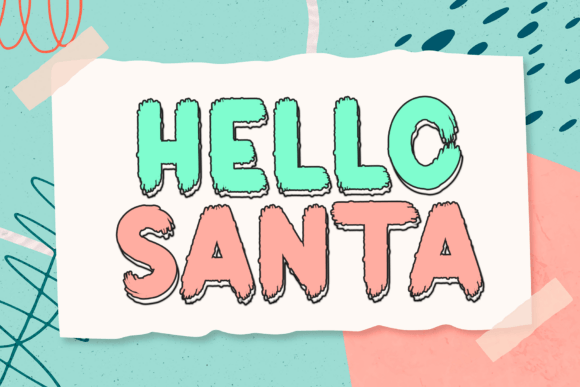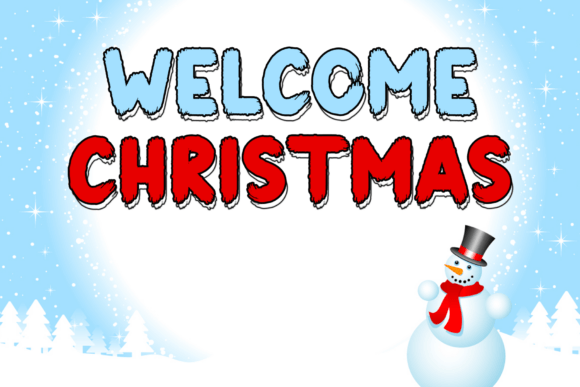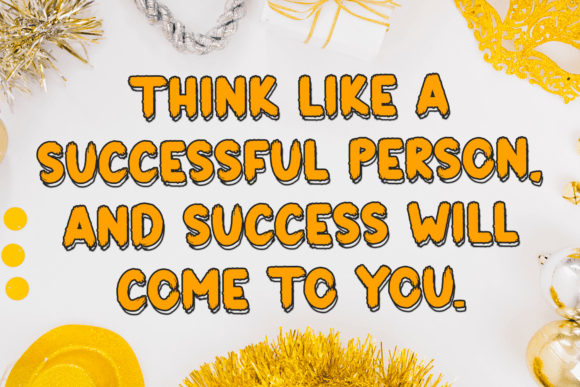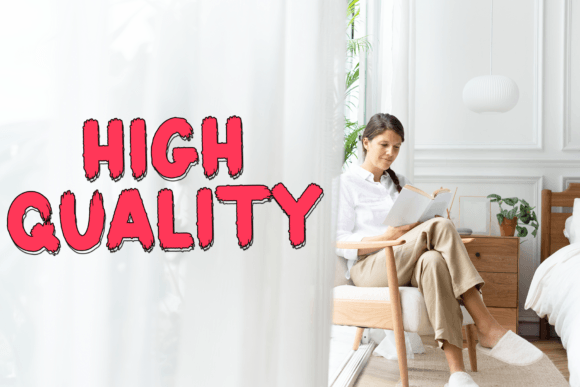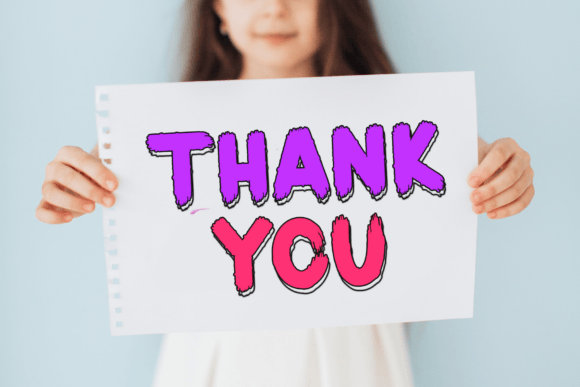
Introduction to Santa Cute Font
Have you ever been browsing through your favorite design inspiration website, and suddenly, you stumble upon a project that makes your heart skip a beat? For designers, these moments of creative spark are priceless. They remind us why we love our job – the thrill of discovery, the rush of new ideas, and the satisfaction of bringing a concept to life. One such design gem that has captured the hearts of many is the Santa Cute Font.
Designed to evoke a sense of freshness and casual elegance, the Santa Cute Font is a charming Display font that is perfect for designers looking to add a touch of whimsy to their creative projects. With its fluid strokes and organic lines, this font is a valuable resource for designers seeking to create high-quality designs that stand out from the crowd.
Key Features of Santa Cute Font
- Unique, whimsical design perfect for creative projects, such as Christmas cards, gift tags, and holiday-themed merchandise.
- High-quality font with transparent background, ideal for use with images or other design elements.
- Exclusive design, not found in standard font libraries, adding a touch of uniqueness to any creative project.
Honest Review: Santa Cute Font
As a designer, I’ve had my fair share of using various fonts for my creative projects. Recently, I stumbled upon the Santa Cute Font, and I must say, it’s a delightful addition to my design resource library.
- ✨ High-quality design: The font is crisp and clean, making it perfect for various creative projects.
- ✨ Transparent background: The font’s transparent background allows for easy layering and customization.
However, I did encounter a few limitations ⚠️:
- ⚠️ Limited font styles: While the font itself is cute, the number of available font styles is limited.
Overall, I’m impressed with the Santa Cute Font. It’s a great addition to any designer’s library, and its high-quality design and free download make it a fantastic resource. However, be aware of the limitations, and you’ll be all set for your next creative project.
Transparent Background and High-Quality Results
To achieve high-quality results with the Santa Cute Font, ensure you have a transparent background. This will allow you to layer your text over any design element without any unwanted background noise. Additionally, use the font at its optimal size to achieve the best results.
Common Use Cases and Tips
The Santa Cute Font is ideal for creative projects, such as greeting cards, social media graphics, and advertisements. To get the most out of the font, use it in conjunction with other design elements, such as images and graphics. Experiment with different font sizes and colors to achieve a unique look.